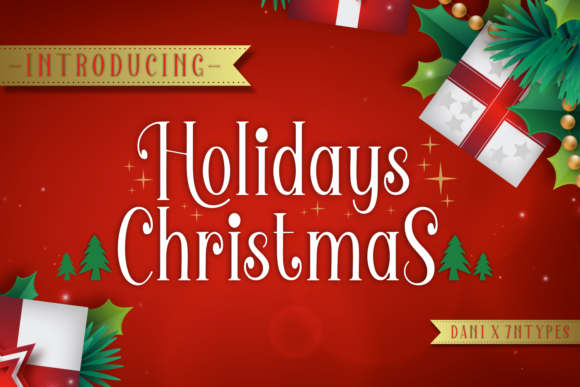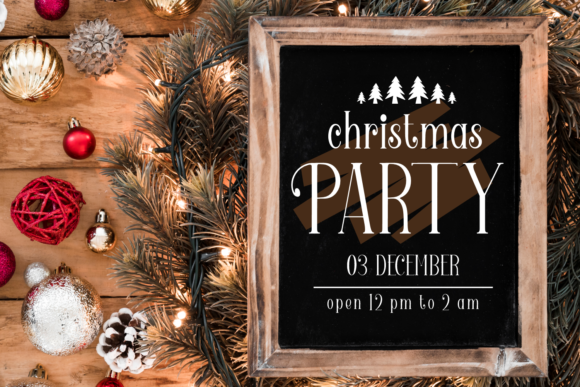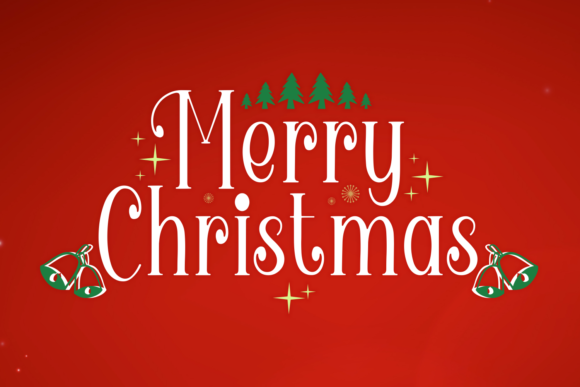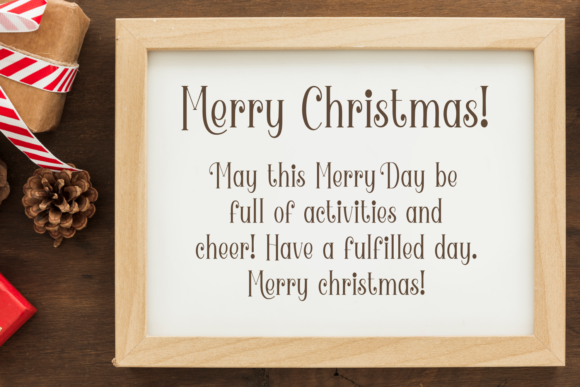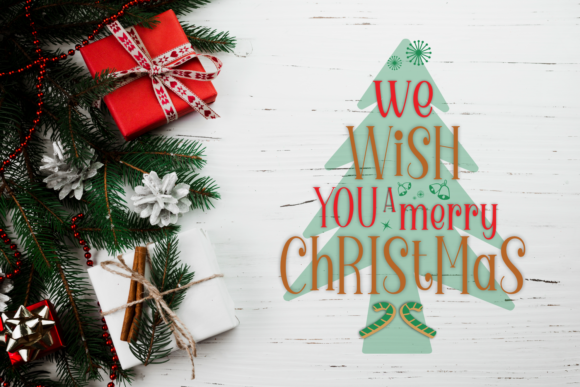
Get into the Holiday Spirit with the Perfect Font
There’s nothing quite like the feeling of creating something special for a loved one during the holiday season. You’re rummaging through your craft room, searching for the perfect font to add a touch of magic to your handmade card or gift tag. And then, it hits you – the perfect combination of festive flair and friendly charm that screams ‘holiday cheer’.
Enter the Holidays Christmas Font, a delightful serif font that’s specifically designed to capture the essence of the season. Whether you’re a seasoned crafter or just starting out, this font is the perfect addition to any holiday-themed project. Its warm and inviting style makes it an instant favorite among designers, who appreciate its versatility and ease of use.
With the Holidays Christmas Font, you can add a professional touch to your holiday creations without breaking the bank. Its value lies in its ability to evoke the spirit of the season, making it a must-have for designers who want to create truly special holiday projects.
Holidays Christmas Font Key Features
- Unique Characteristics: The font features a festive and elegant design, making it perfect for Christmas-themed projects, holiday cards, and gift tags.
Holidays Christmas Font Review
Holidays Christmas Font is a festive and fun font that’s perfect for the holiday season. ✨ The bold and playful design makes it ideal for creating eye-catching graphics and advertisements. ✨ The font is also highly customizable, allowing you to adjust the size, color, and style to fit your specific needs.
- Festive and fun design, perfect for the holiday season
- Highly customizable, allowing for easy adjustments to size, color, and style
- Great for creating eye-catching graphics and advertisements
- ⚠️ Limited character set, may not include all necessary characters for complex designs
- ⚠️ May not be suitable for formal or professional applications
- ⚠️ Can be overwhelming if used in large quantities
Overall, Holidays Christmas Font is a great choice for anyone looking to add a festive touch to their designs. While it may have some limitations, its playful and customizable design make it a valuable addition to any designer’s toolkit.
The Holidays Christmas Font is perfect for creating festive holiday designs, including:
- Christmas card templates
- Holiday party invitations
- New year’s eve posters
- Festive social media graphics